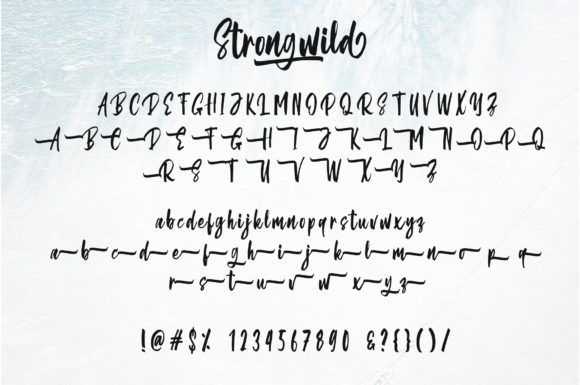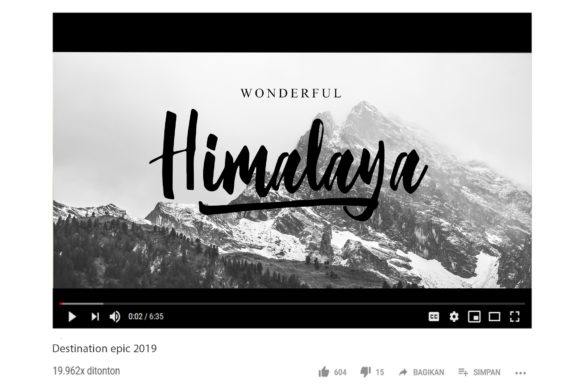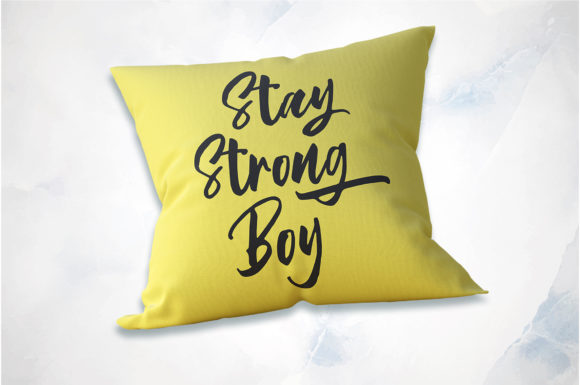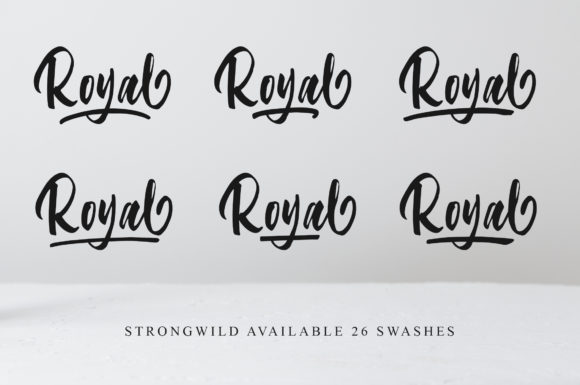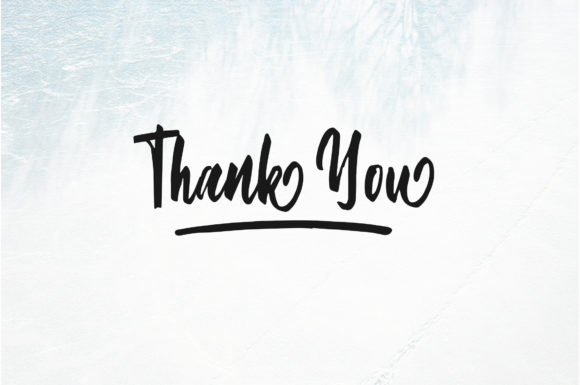
Strongwild Font
About Strongwild Font
Strongwild feels raw and untamed, which makes it the perfect font for adding a wild and natural feel to any design idea. Ignite your creativity with this bold script!